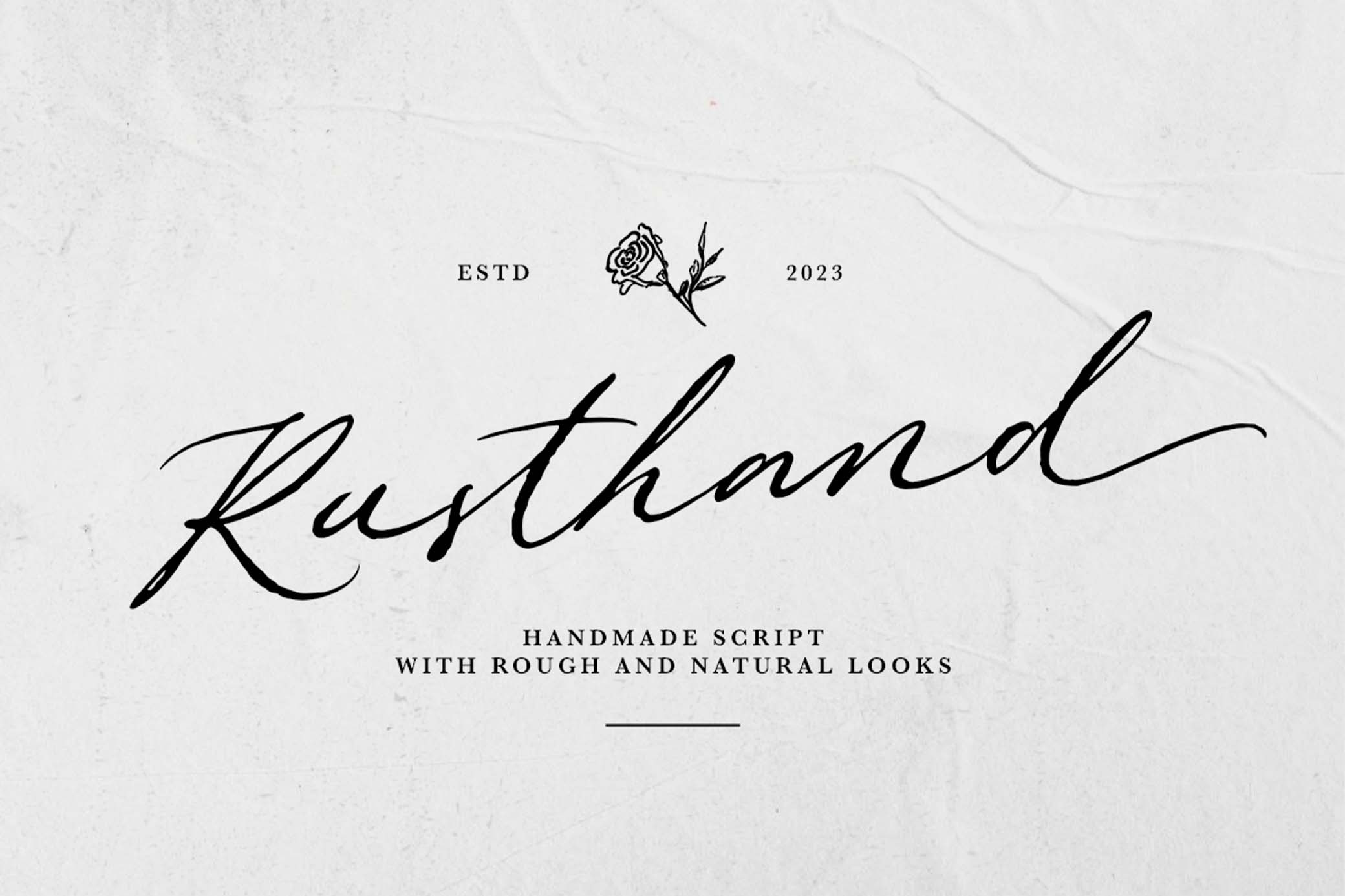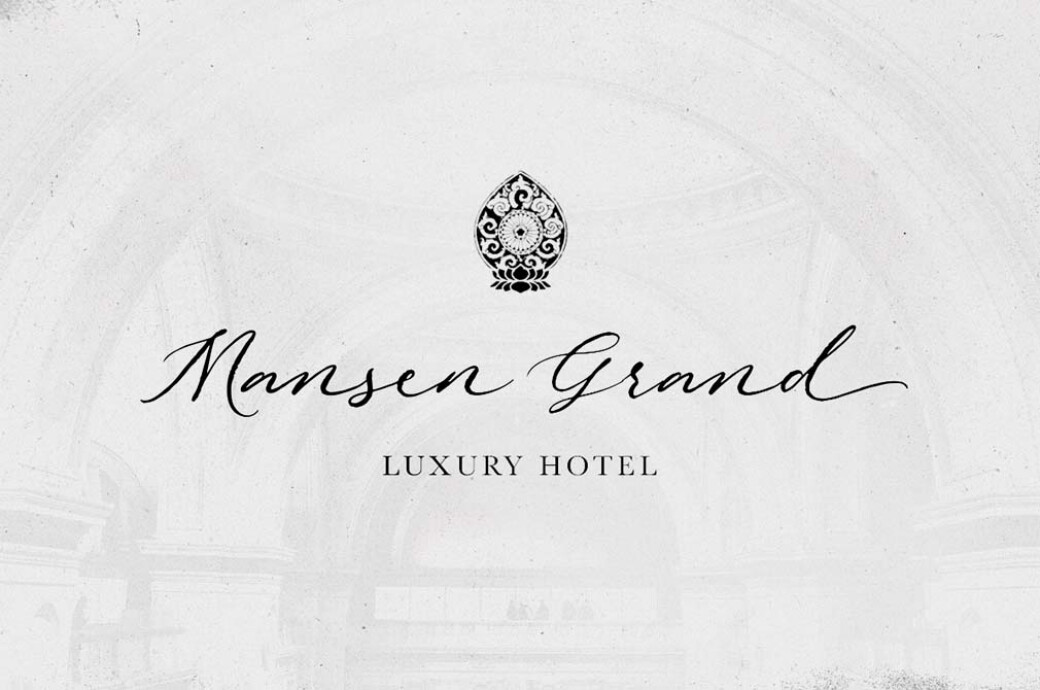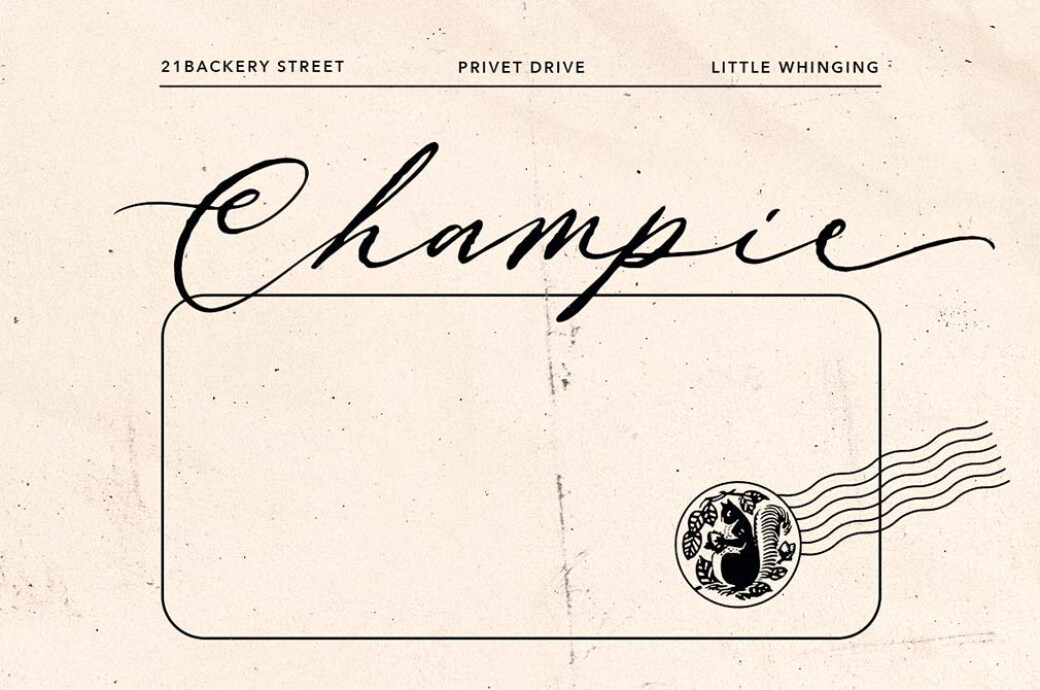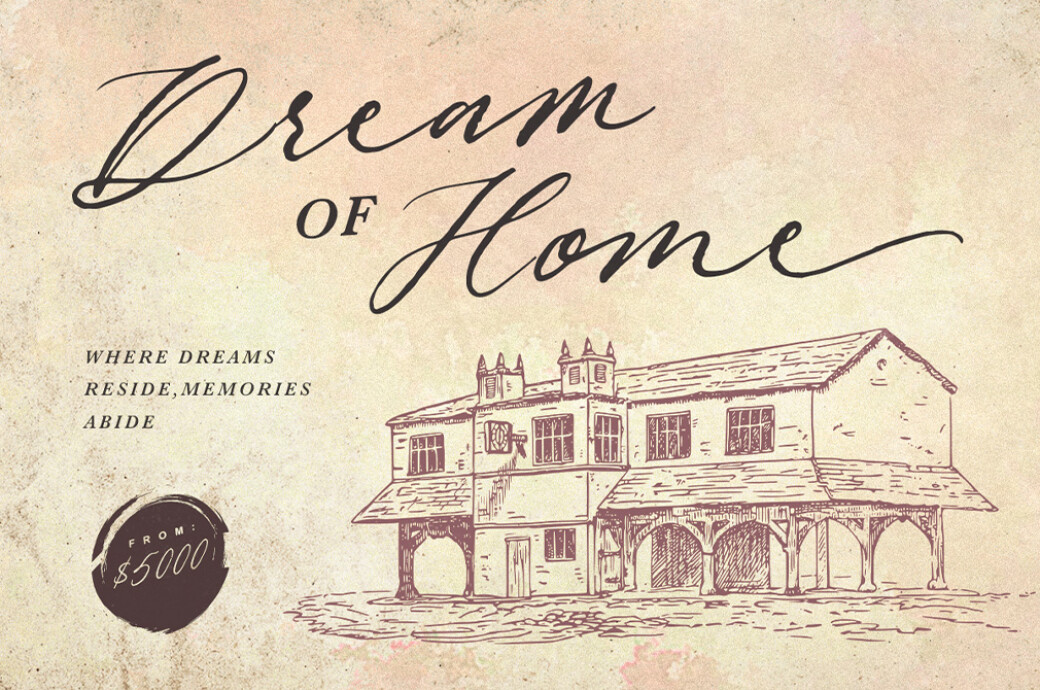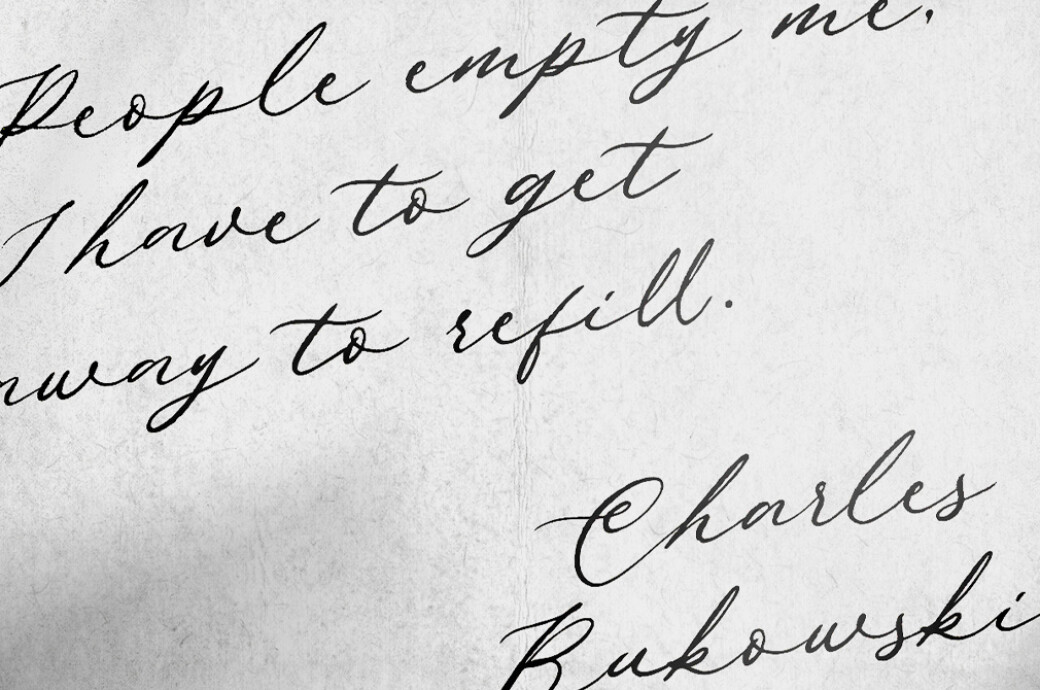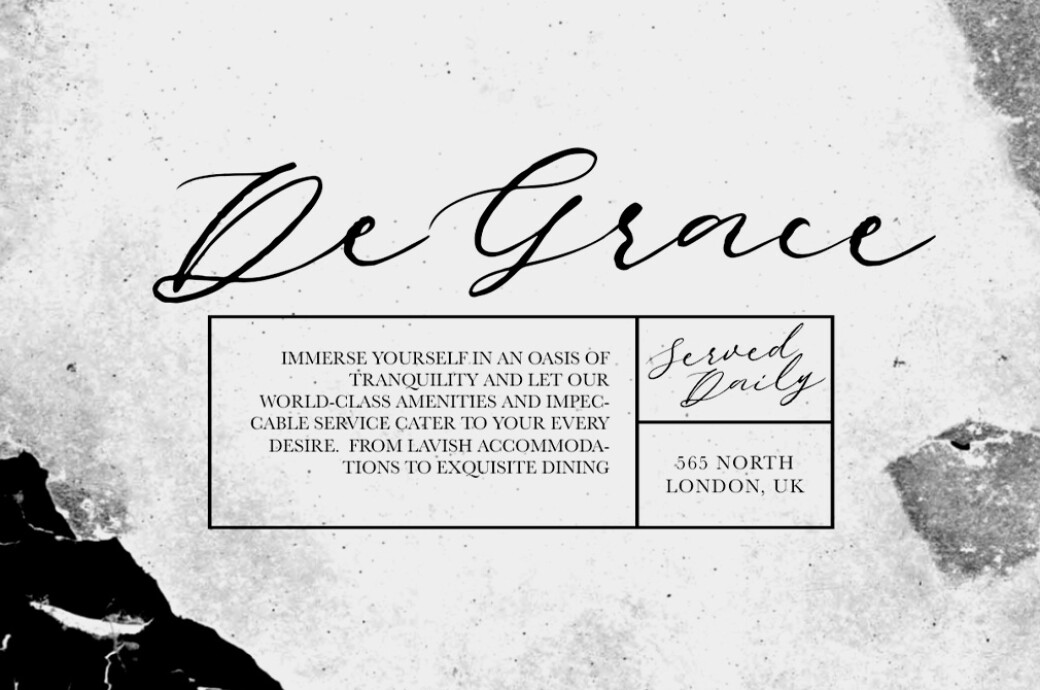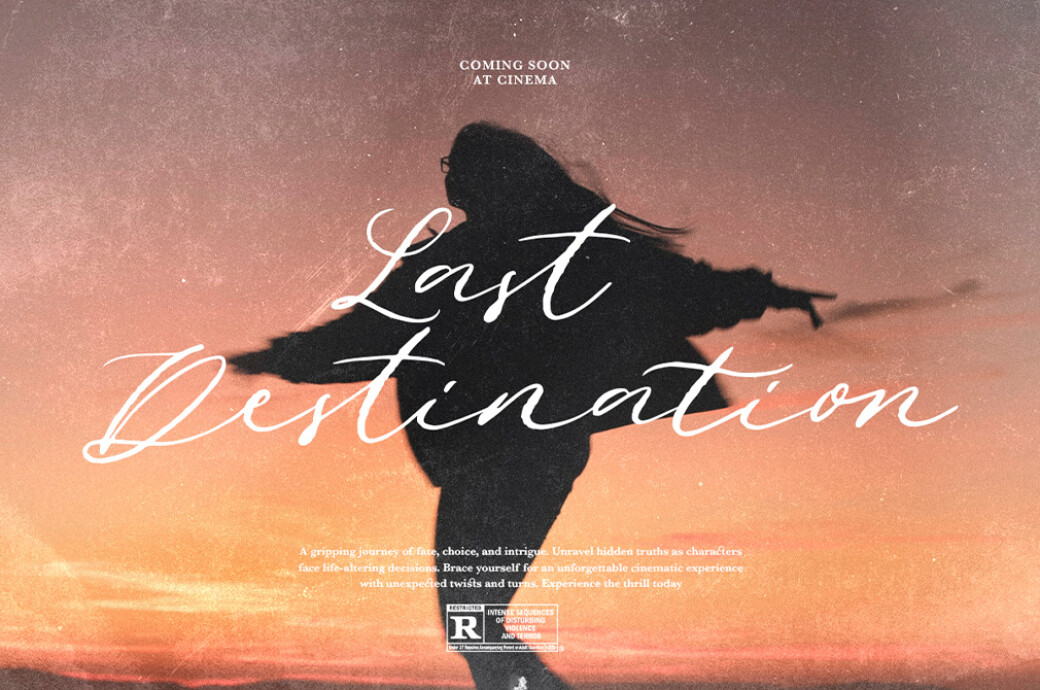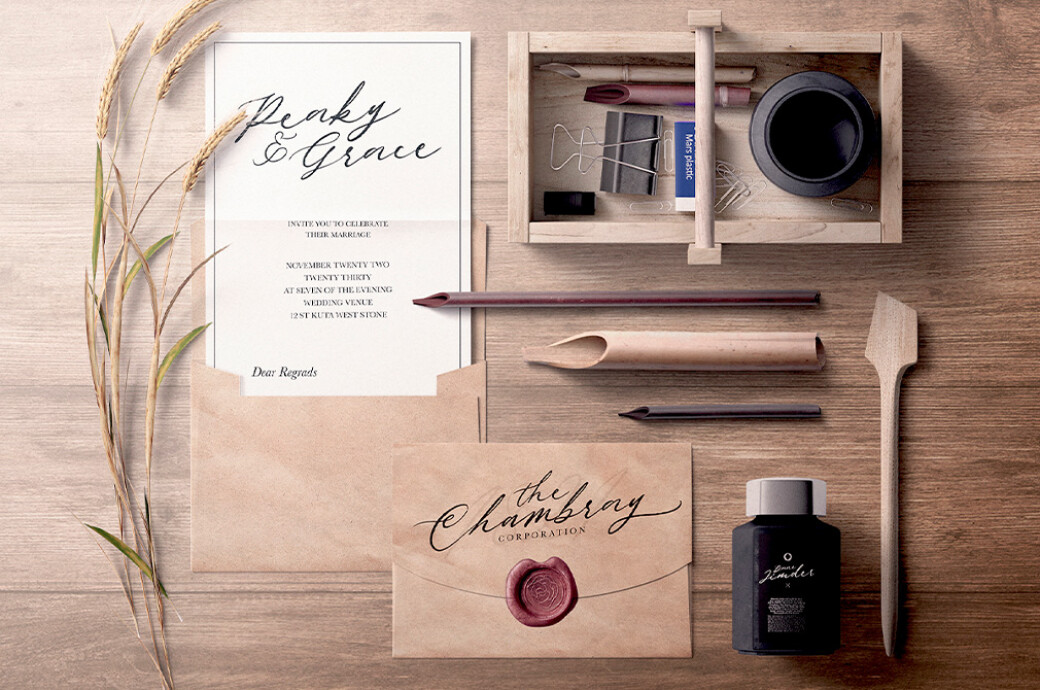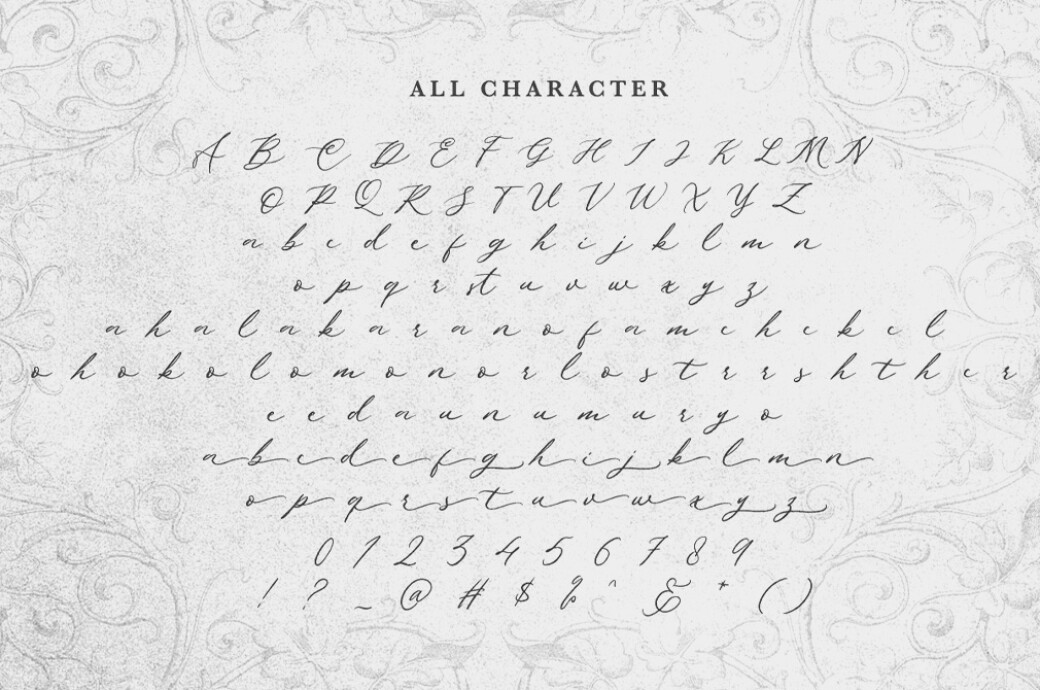
Rusthand — Rough Script
Rusthand is nostalgic in every character. It comes from old letters stored in a dusty box in the attic. Or from vintage cards sold on flea markets — with a heartwarming message no one ever received.
This soft, airy script is perfect for wedding invitations, cards, logos, delicate branding, packaging, tattoos, quotes, and event decor. A complete character set is available, from upper and lowercase letters to international characters, punctuation, numbers, ligatures, and alternates. Rusthand can be paired with almost any classic serif, which makes it possible to feature it as an additional element in the brand's design system.